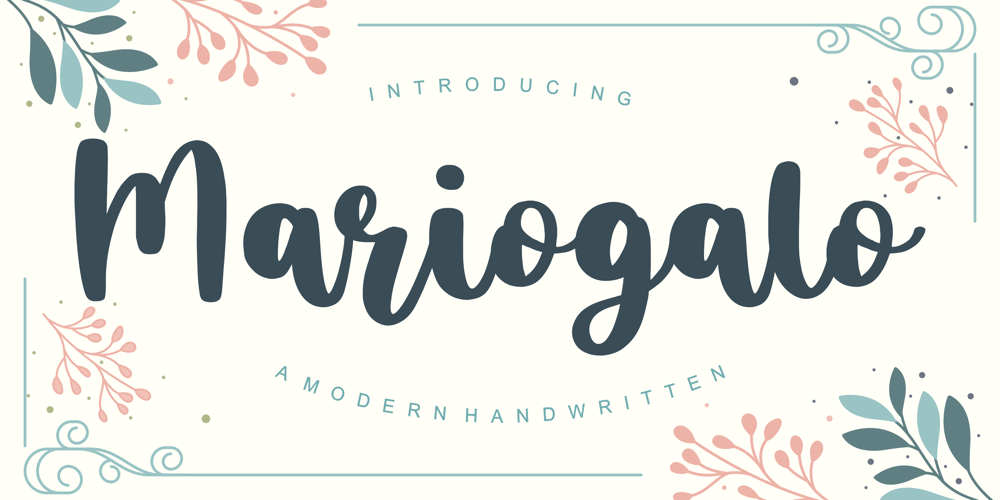
Mariogalo Font Family was designed by Restu Angga and published by Balpirick. Mariogalo contains 1 styles and family package options. Proudly Present, Mariogalo Font.Mariogalo is a Modern Handwritten font.Mariogalo is perfect for product packaging, branding project, megazine, social media, wedding, or just used to express words above the background.Mariogalo also multilingual support.Enjoy the font, feel free to comment or feedback, send me PM or email.Thank you!